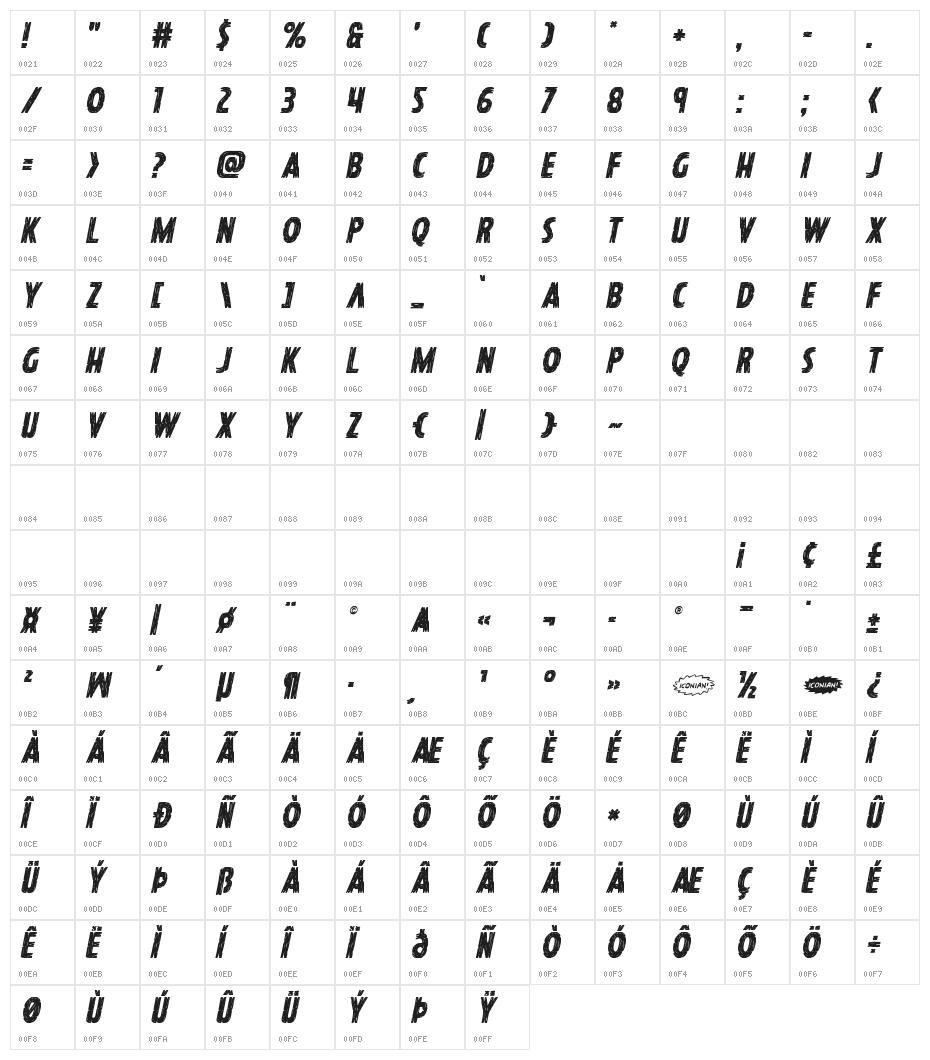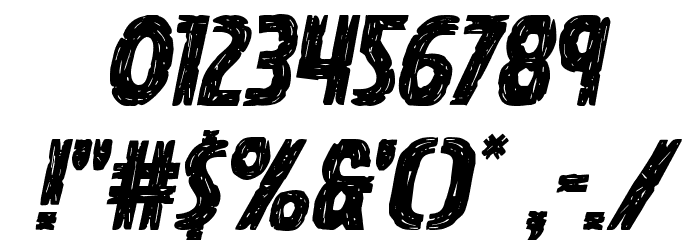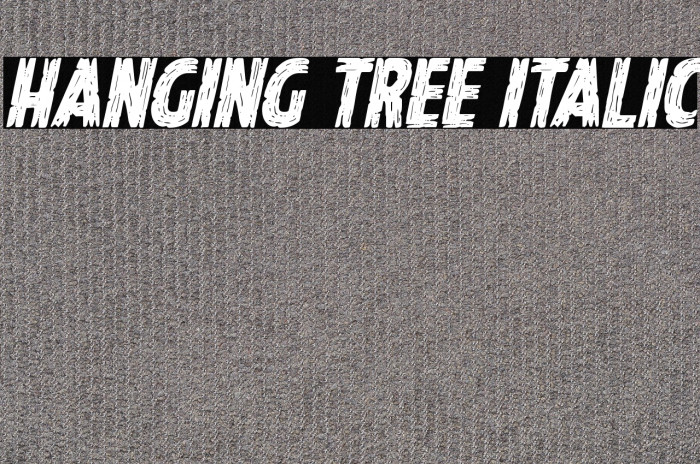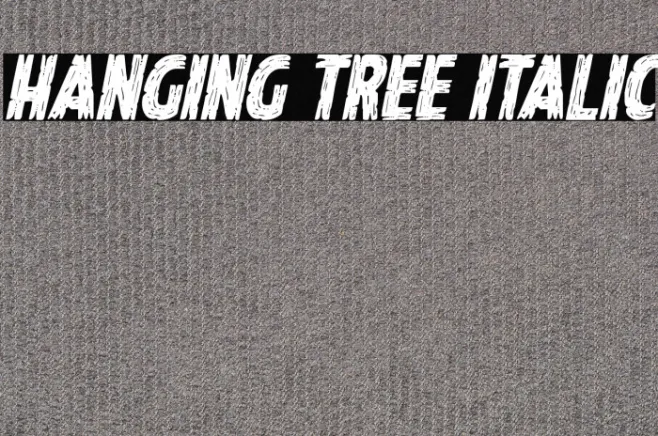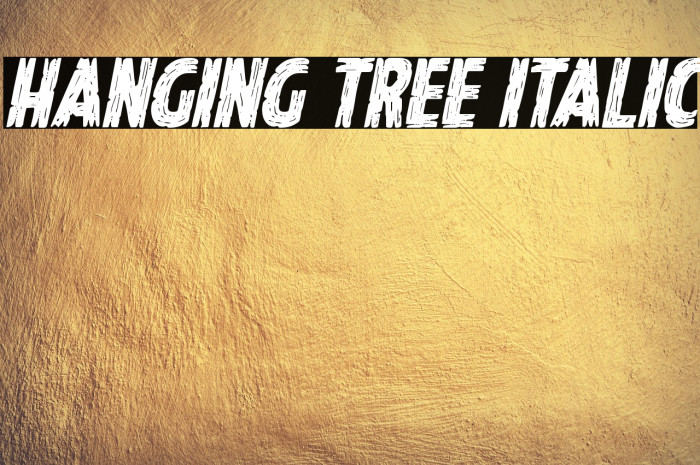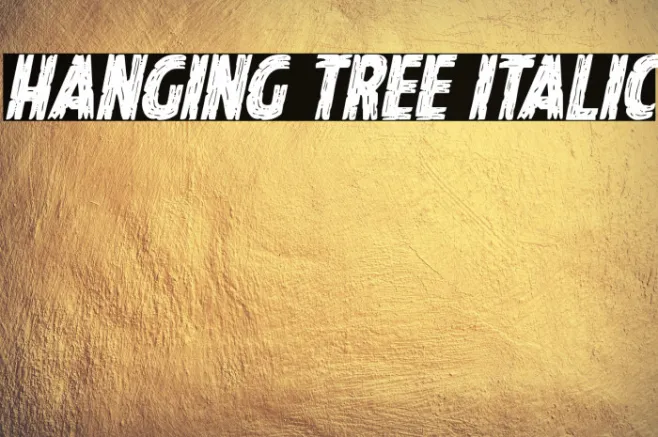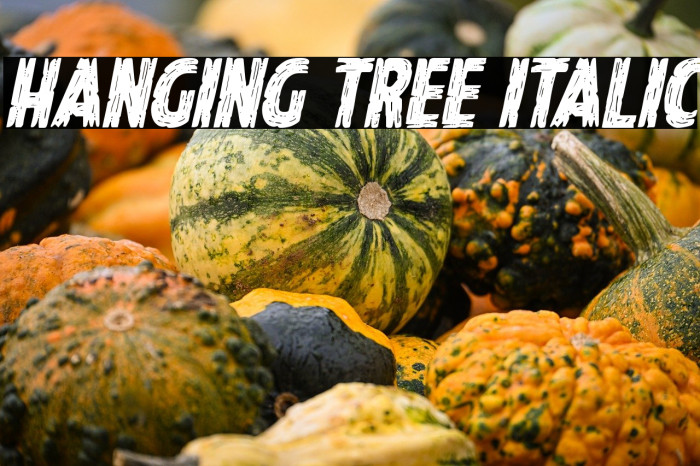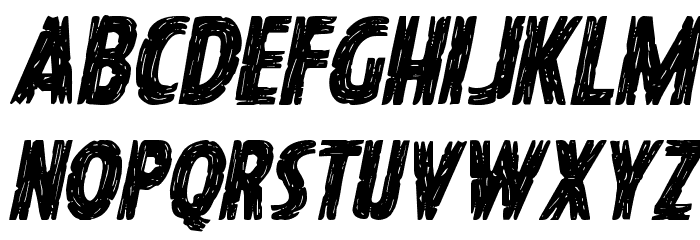
Hanging Tree Italic Font
Hanging Tree Italic Description
This font features a bold, dynamic style with a hand-drawn, sketch-like appearance. The characters are slanted, giving an italicized effect, and each letter is filled with rough, textured strokes that create a sense of movement and energy. The uppercase and lowercase letters maintain a consistent style, with a slightly condensed width that enhances the boldness of the font. Numbers and special characters are equally expressive, maintaining the same textured, hand-drawn quality. This font's unique style makes it stand out, ideal for projects that require a strong visual impact.